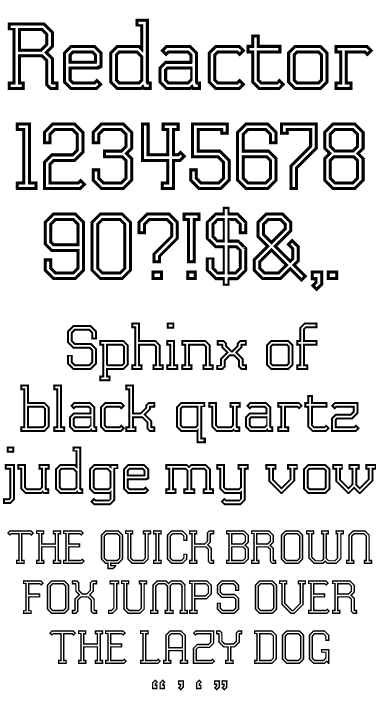
• I need some masochistic fun. I know. An inline.
...and it seems I haven't had quite enough punishment because now I've got the cheek to think I can crank a lower case out too. Tighten up those corners, boy and crank away.
ah, but what pleasure you give us in your pain :)
Having done a lower case I now see that the caps look too condensed. Some of the glyphs will be tricky. M and W don't have equal voids so perhaps I can fix that in the widening.
This is premium quality good.
Thanks, thal. Isn't it a pity one of my more credible fonts is also nearly useless! I suppose I should strike off a filled-in version to see if it looks okay.I suspect most of the charm of it is in the even, homogenous stroke weights.
you always had some kind of charming way to kind of "underworthing" your work, but this little sinner is your masterpiece!
you're like some brilliant expermenting prog-musician on it's way to reform music AS WE KNOW it, without realizing he's created the perfect popsong.
huge probs on this one!!!!!
Thanks, kix. I agree it's my best work so far.
I love the way Fontstruct is so strict. (Whip me! Whip me!)There are some things you can't do -- and some things you can -- in order to end up with a good looking font. Some of these glyphs are right on the edge of acceptability. That pleases and bothers me by turns. But I tentatively suggest there aren't any downright bad shapes (well, maybe the 4 is a dodgy idea) and that's the most pleasing thing of all.
I'm sure kix meant props instead of probs, intaglio.
This one's a beauty. It is also evident in your self-corrections how well your eye for detail has sharpened its focus over time.
Props or probs. Ha ha! Either way I take it as a compliment. If it was probs I choose to interpret it as an acknowledgement of the mindbending ordeal of all that brickstacking... rather than being a mundane old typo. Shameless slut that I am.
Don't mind me, I'm in a puckish mood. Happy I done good at last!
oh man, this was for sure a compliment, haha...